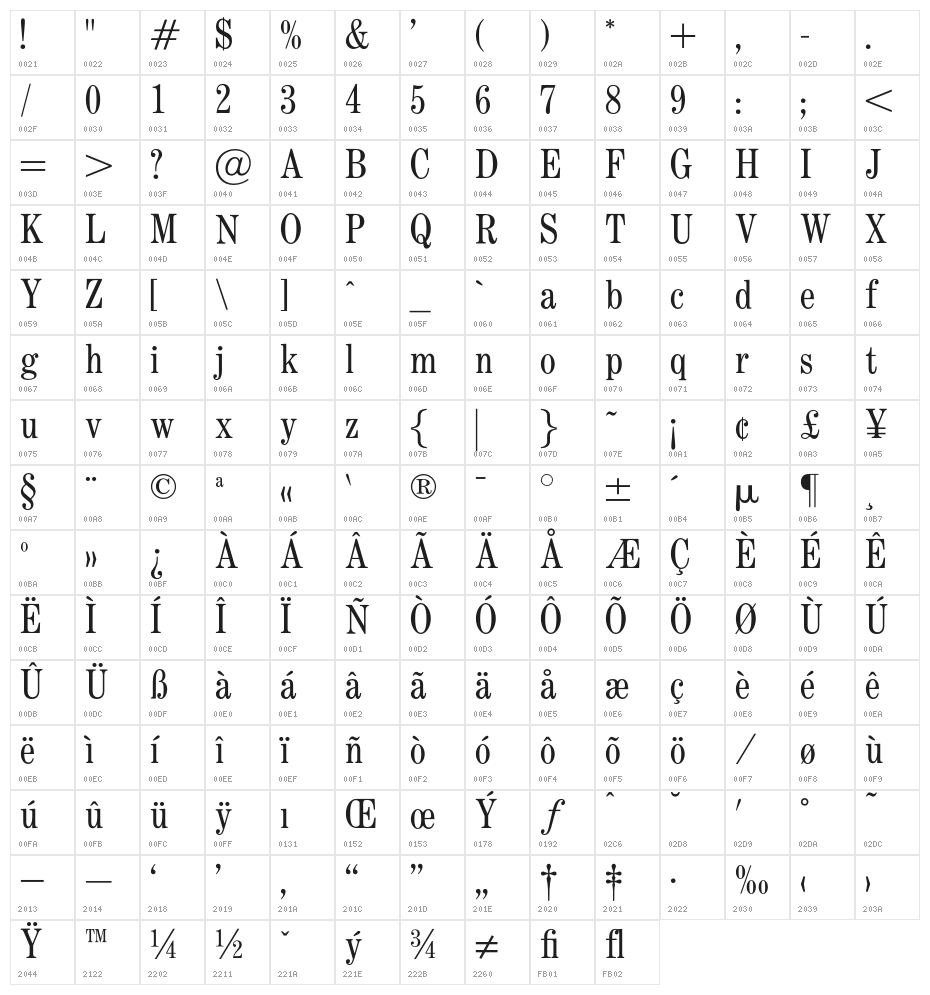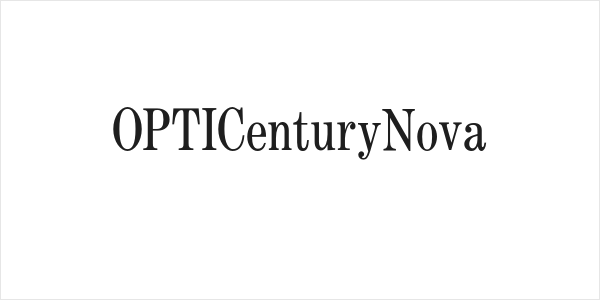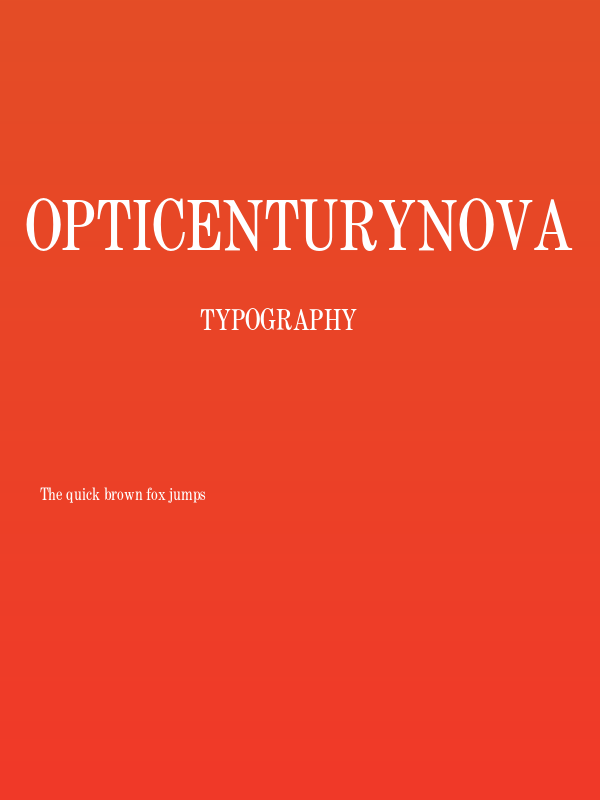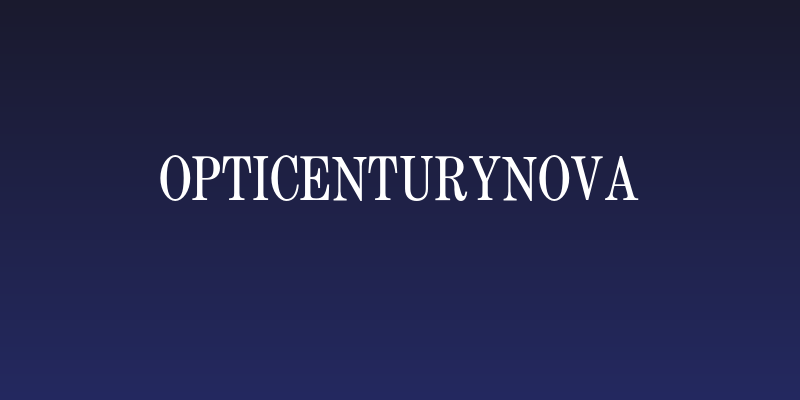
OPTICenturyNova Font
OPTICenturyNova Description
This font features a classic serif style with elegant and refined strokes. The uppercase letters are bold and commanding, while the lowercase letters maintain a balanced and harmonious appearance. The numerals are clear and distinct, making them easy to read. Special characters are well-defined, adding versatility to the font. The overall design exudes a timeless and sophisticated feel, suitable for a variety of applications.
Overall StyleClassic
Proposed ProjectsIdeal for book covers, editorial design, formal invitations, and branding projects that require a touch of elegance and tradition.